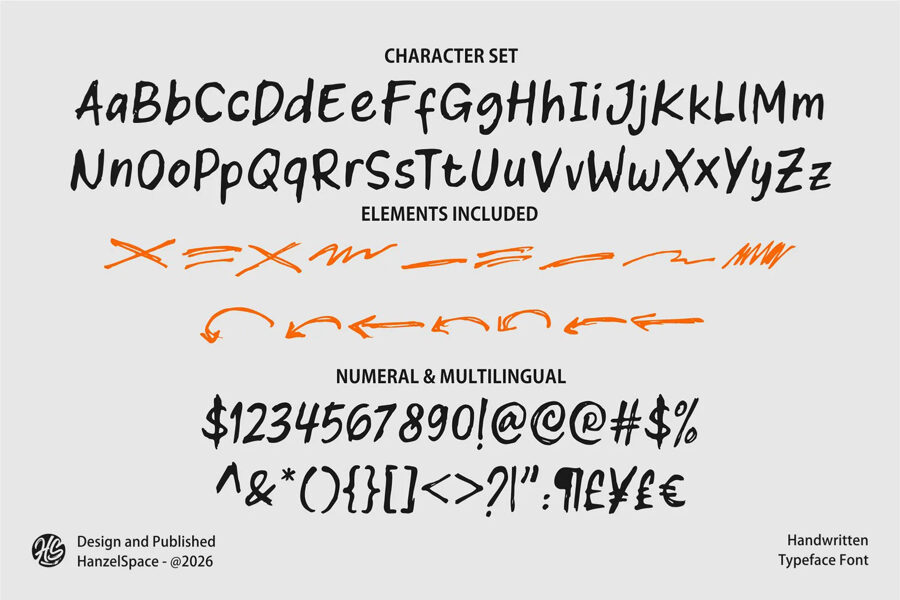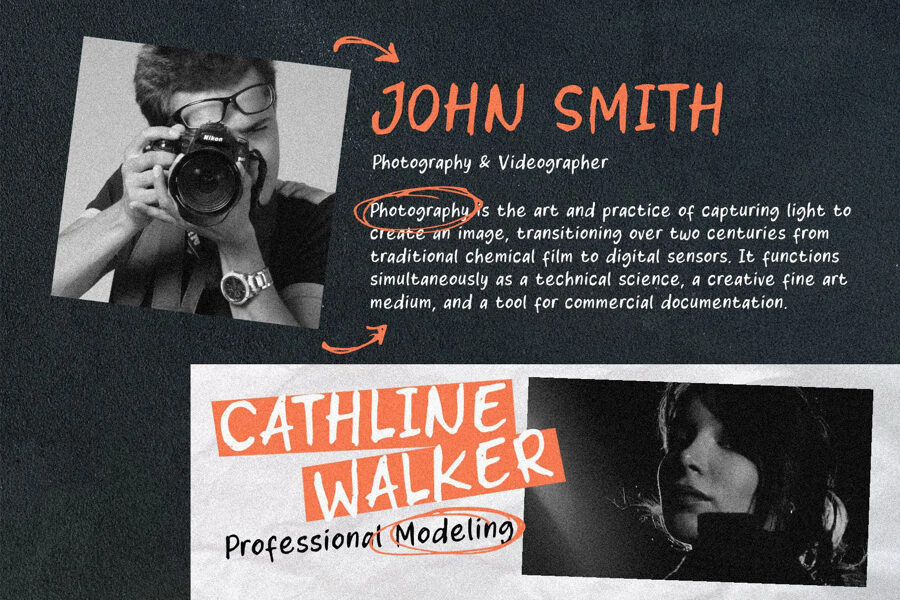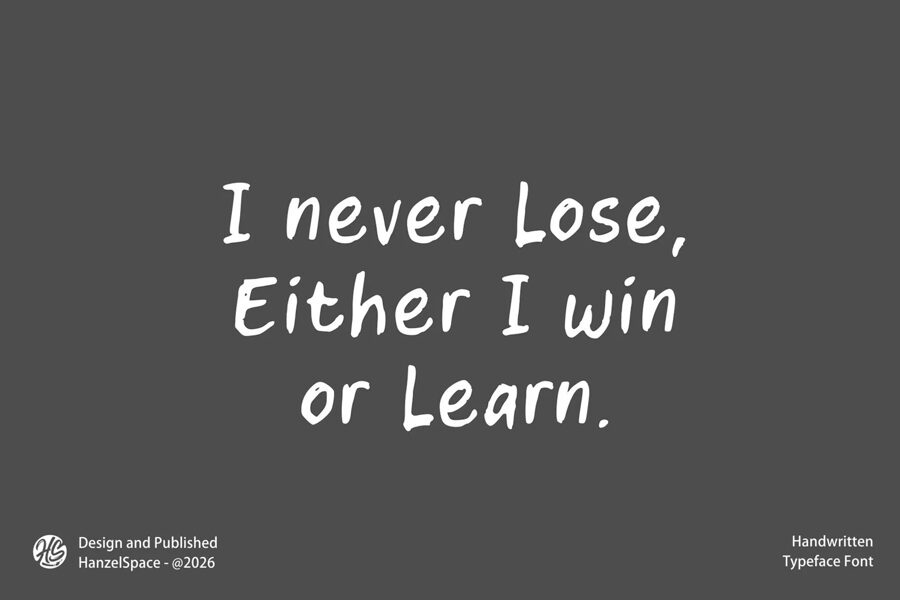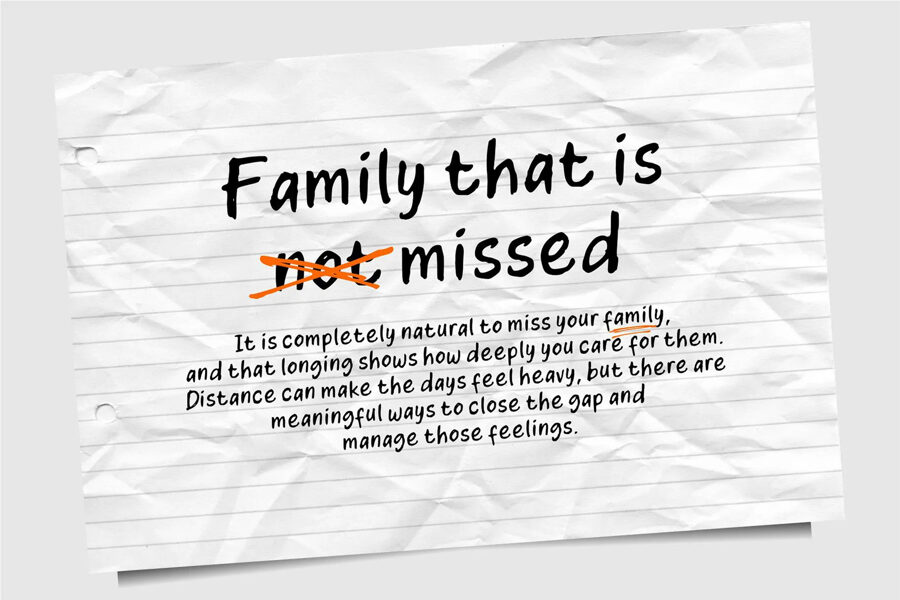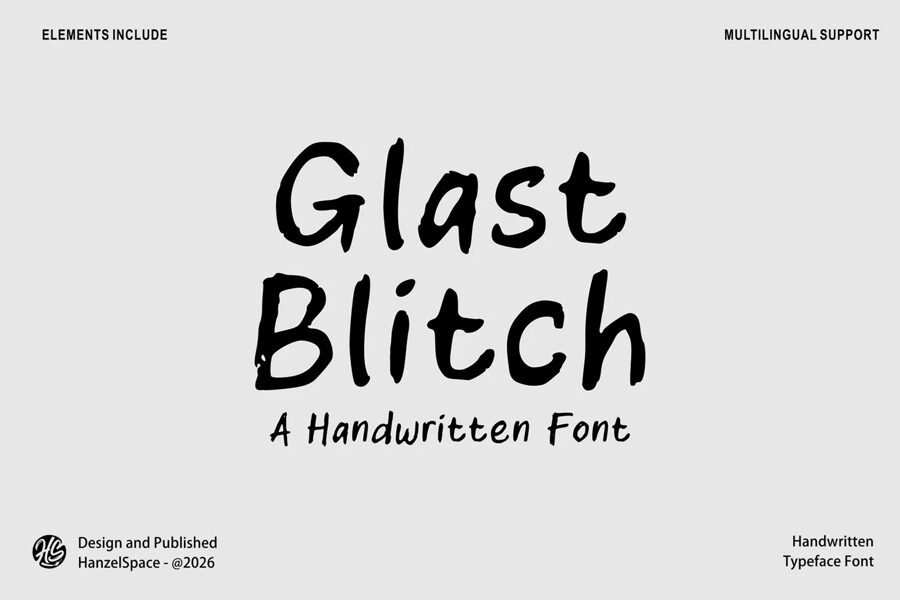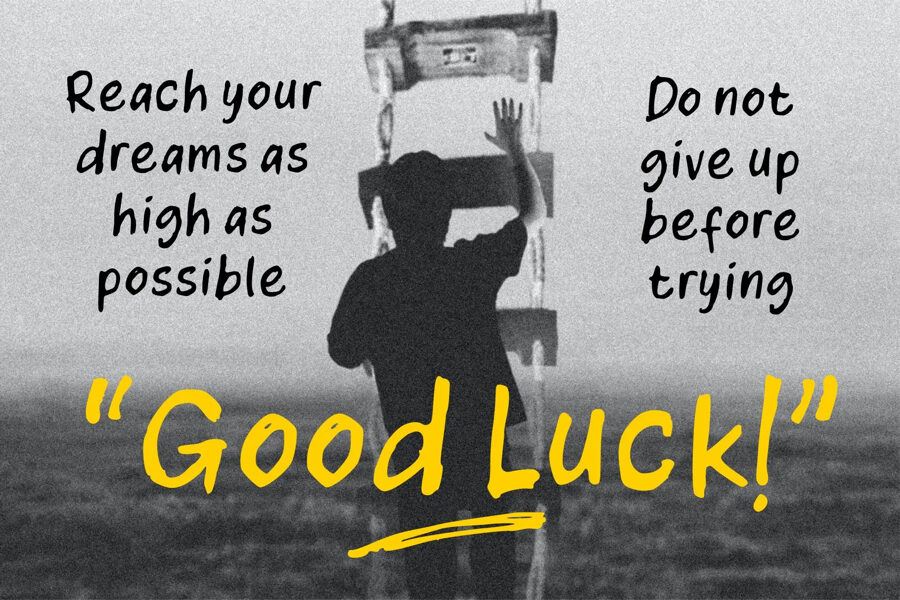
Glast Blitch Font
Meet Glast Blitch, a unique handwritten font born from authentic, hand-drawn script. Created with an ink pen on paper in a rough, organic style, it adds a personal touch to designs. Perfect for various projects, including packaging, magazines, branding, and quote designs, this font brings a human element to your work.